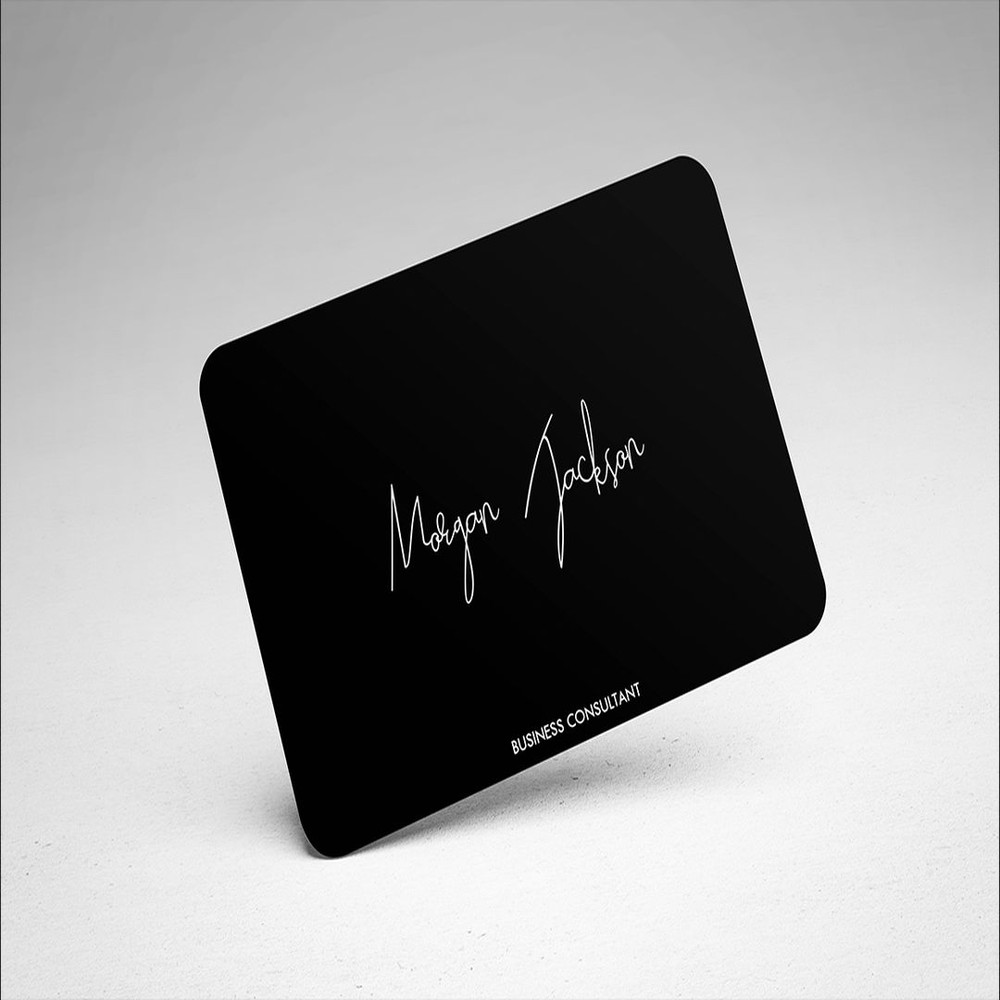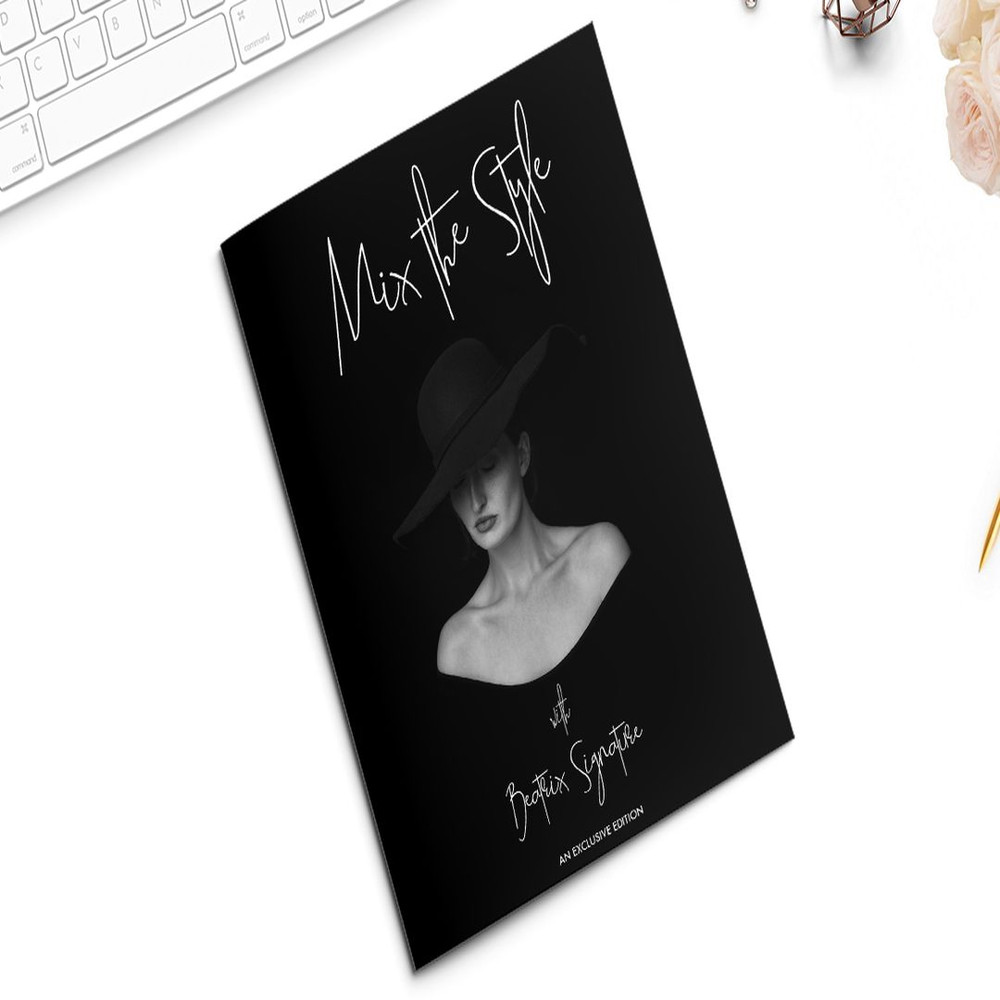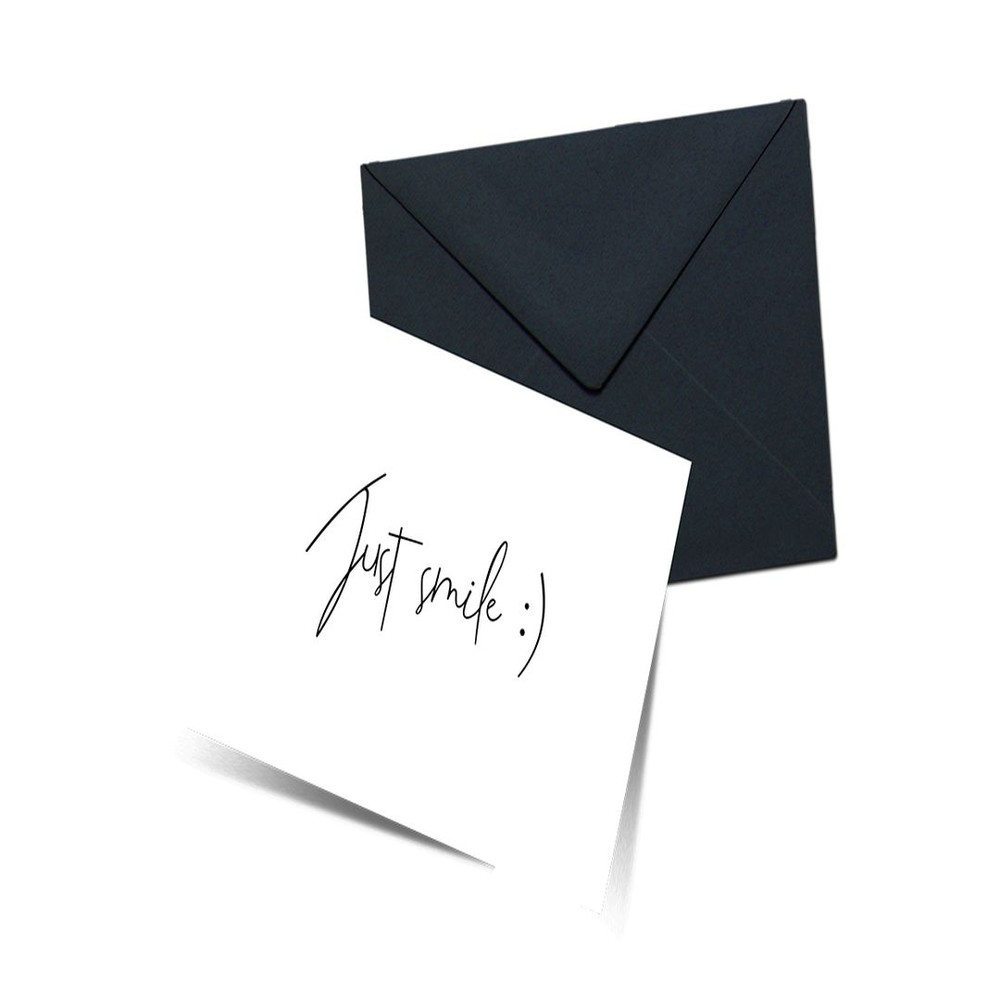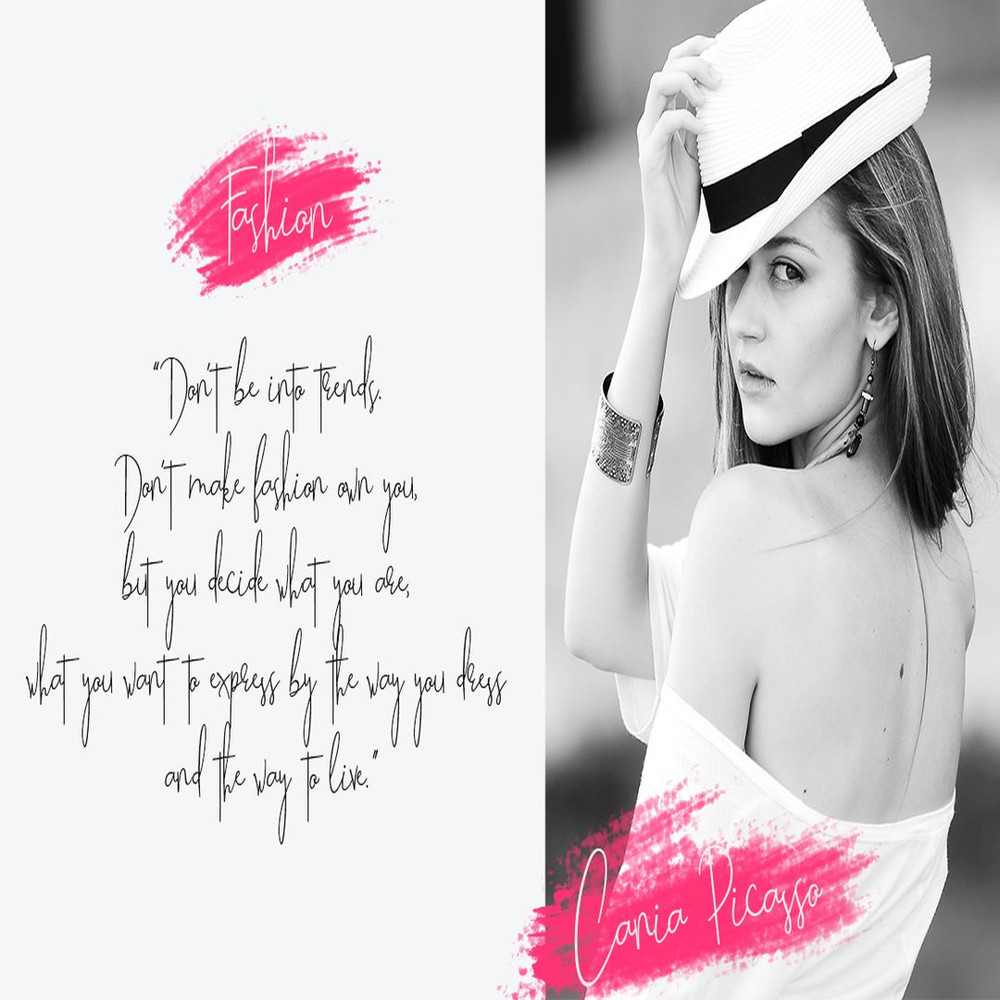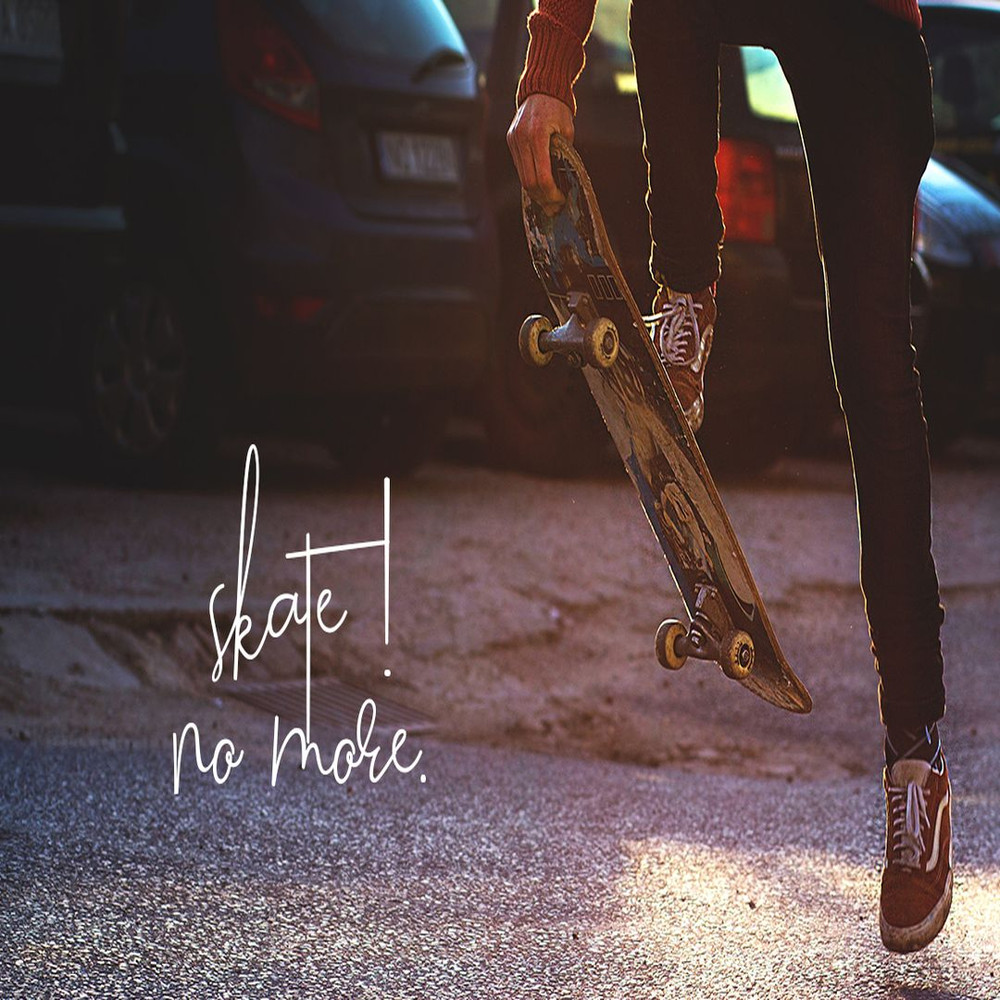
Genit is classy, elegant, modern, and natural handwritten script font. Genit was made to handle every minimalist design projects. Minimalist design is recommended for professional business, just like Leonardo da Vinci said:
“Simplicity is the ultimate form of sophistication”
With signature style, Genit is ideal for business card, magazine, book cover, blog, branding, poster, headline, wedding, quote, also GREAT for logo. You can use this font for various design projects that need elegant feels.
Genit is classy, elegant, modern, and natural handwritten script font. Genit was made to handle every minimalist design projects. Minimalist design is recommended for professional business, just like Leonardo da Vinci said:
“Simplicity is the ultimate form of sophistication”
With signature style, Genit is ideal for business card, magazine, book cover, blog, branding, poster, headline, wedding, quote, also GREAT for logo. You can use this font for various design projects that need elegant feels.